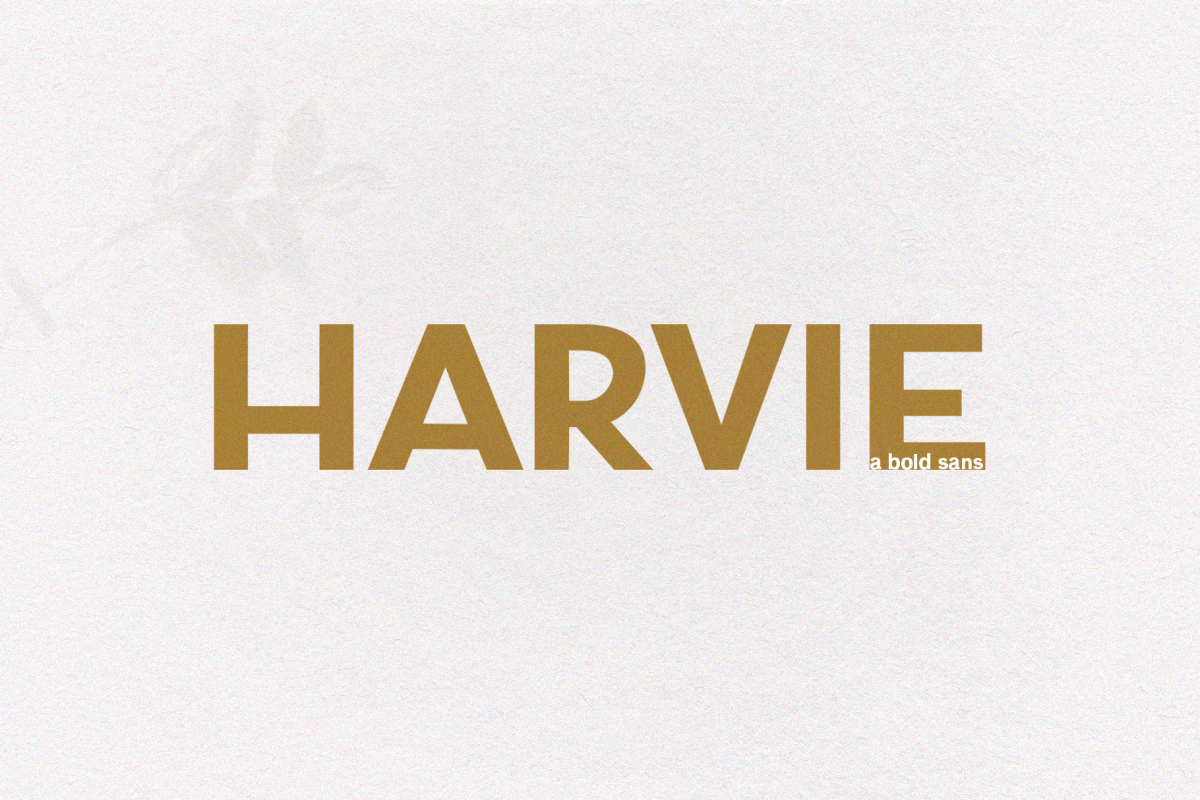
Harvie - A Bold Sans Font
Harvie is a bold, yet classic display font.
This font would pair well with a script or signature style. It also speaks loud on its own!
This font is perfect for headings, blogs, logos, branding and more!
This font does include multilingual support.